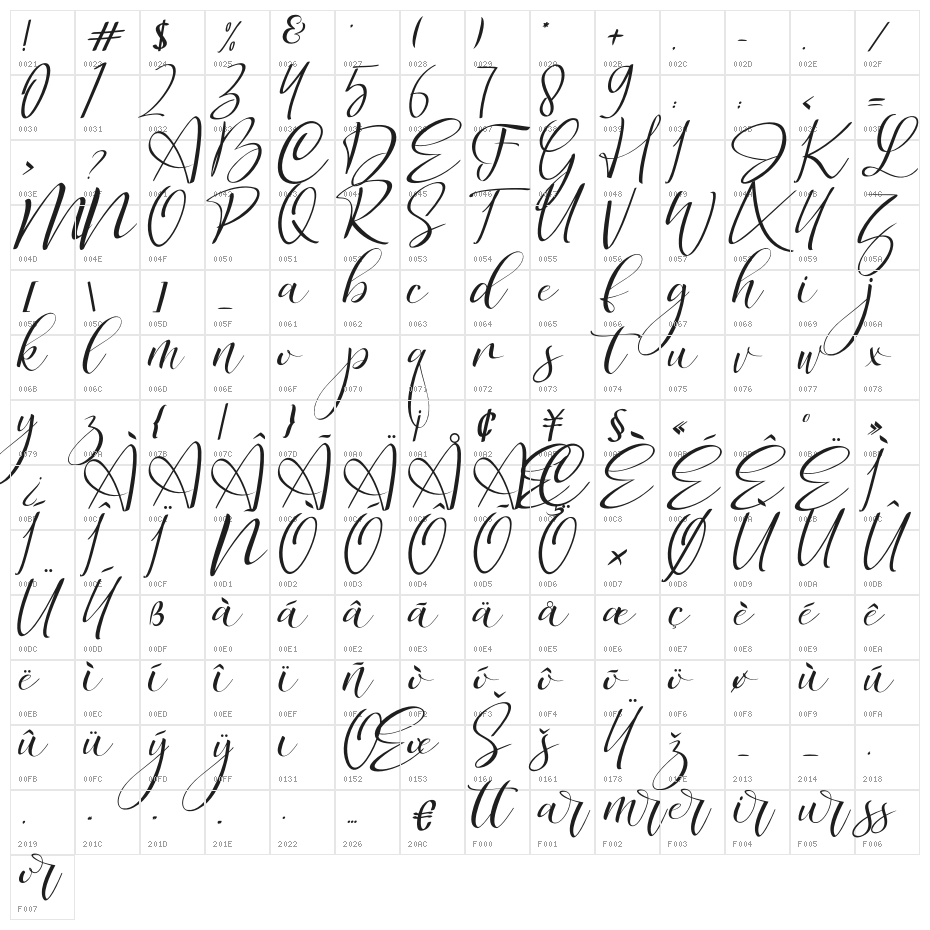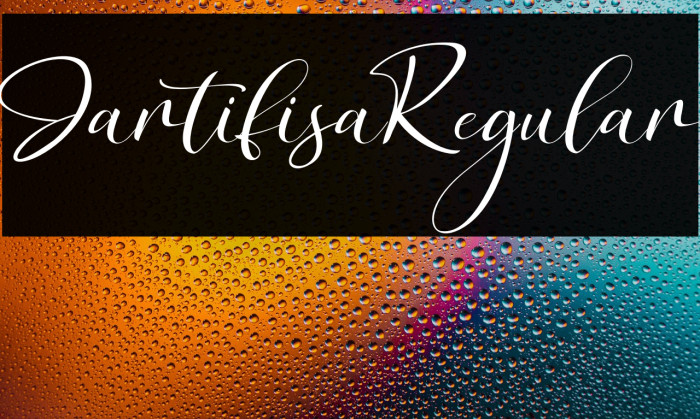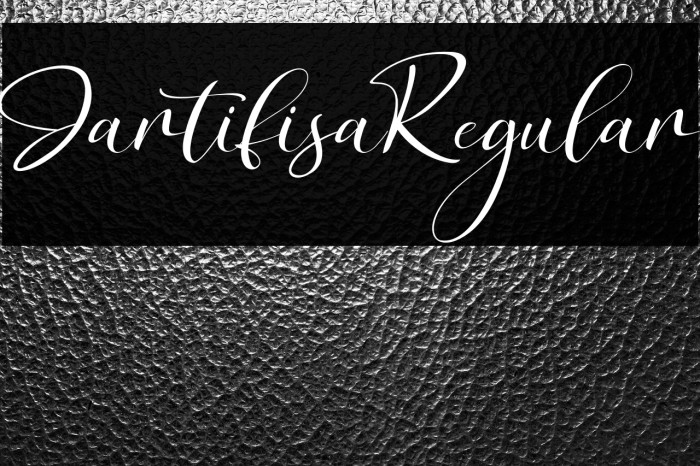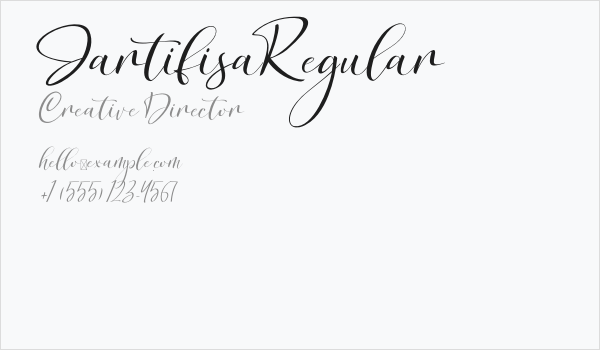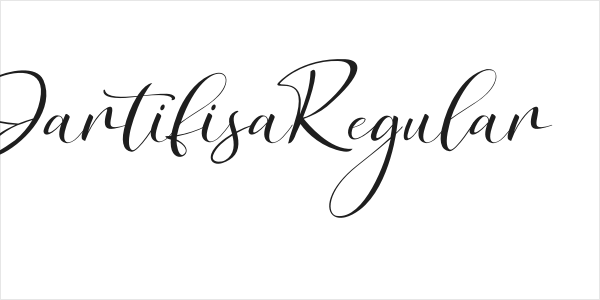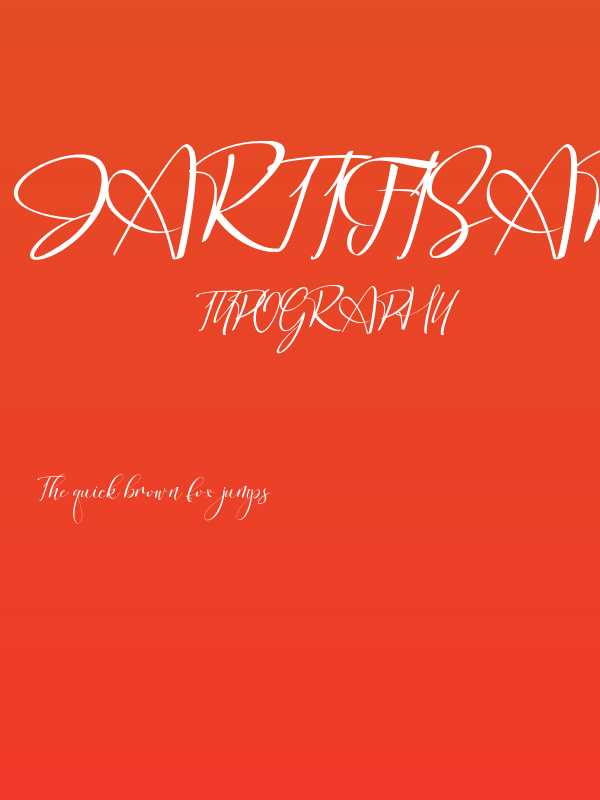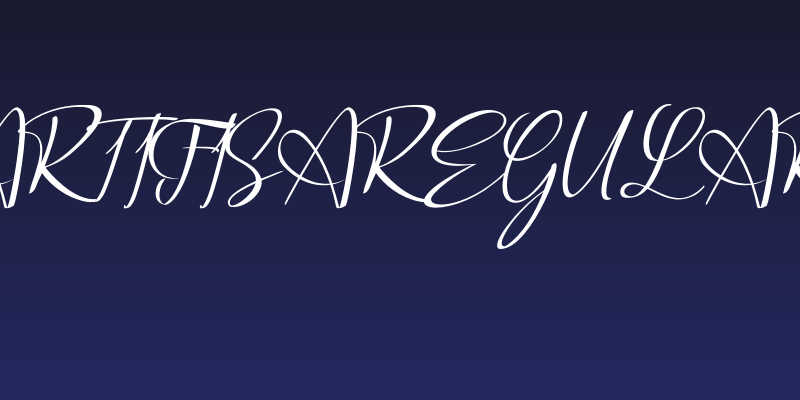
JartifisaRegular Font
JartifisaRegular Description
This elegant script font features flowing, cursive letterforms with a high degree of slant and flourish. The uppercase letters are particularly ornate, with sweeping ascenders and descenders that give the font a sense of movement and grace. The lowercase letters maintain a consistent style, complementing the uppercase with their own subtle curves and loops. The numerals are distinct and stylish, matching the overall aesthetic of the font. Special characters are included, each designed with the same attention to detail and elegance. This font is perfect for projects that require a touch of sophistication and artistry.
| Overall Style | Elegant, Artistic |
| Proposed Projects | Ideal for wedding invitations, elegant branding, high-end product packaging, and artistic posters. |